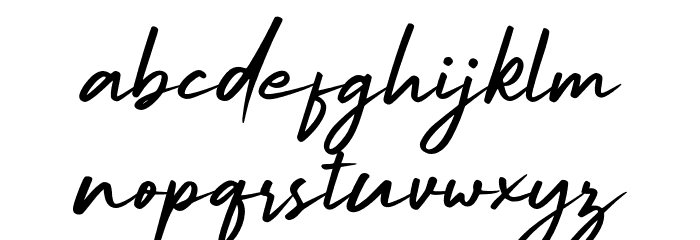
SundeyFree-Italic Font
This font features a dynamic and flowing script style, characterized by its elegant and fluid letterforms. The uppercase letters are tall and slender, with a slight slant that adds a sense of movement and grace. The lowercase letters maintain a consistent flow, with smooth connections between each character, enhancing the cursive aesthetic. The strokes vary in thickness, providing a medium contrast that adds depth and interest to the text. The overall appearance is both stylish and sophisticated, making it suitable for a variety of creative applications.
A dynamic and elegant script font with flowing, slanted letterforms.
- Font: SundeyFree-Italic
- Proposed Projects: Ideal for wedding invitations, branding, greeting cards, and elegant logos.
- Category: Script
- Overall Style: Elegant
- Use Case: Logos, Invitations, Branding